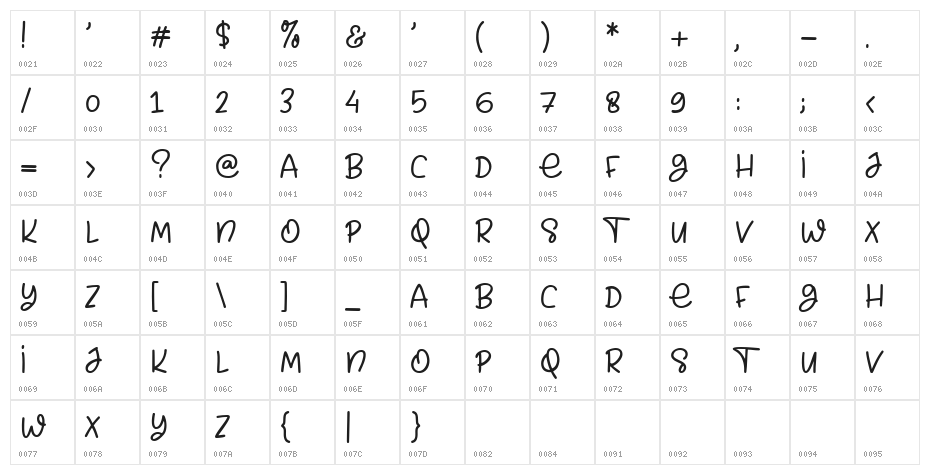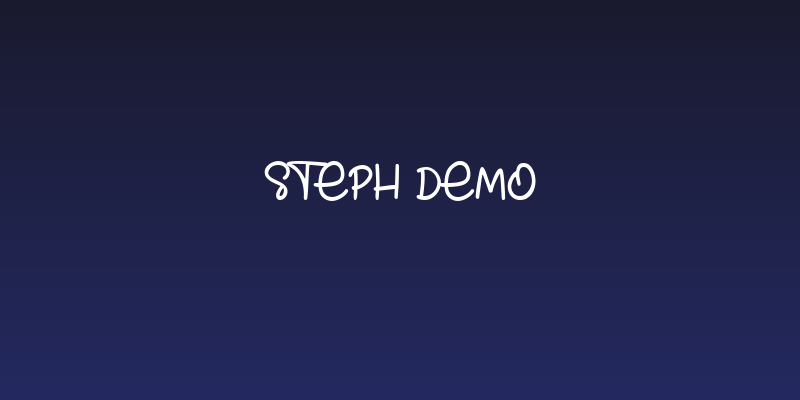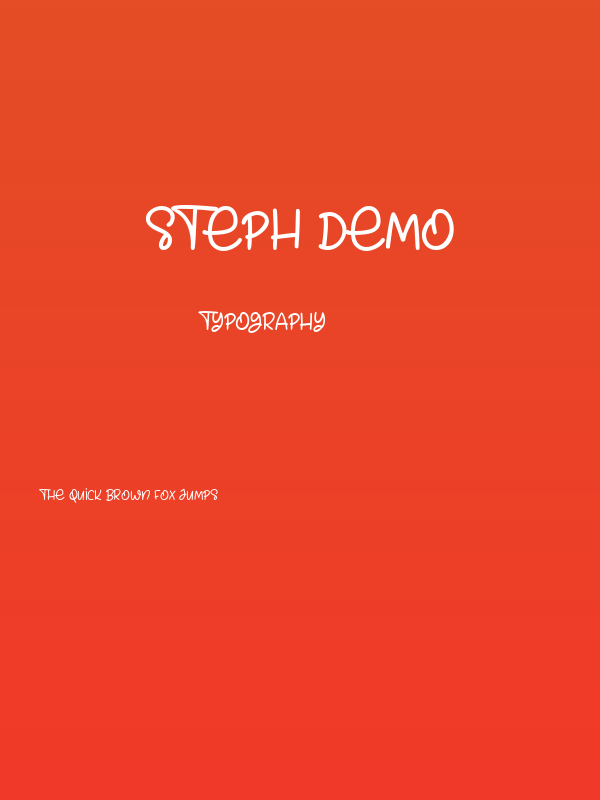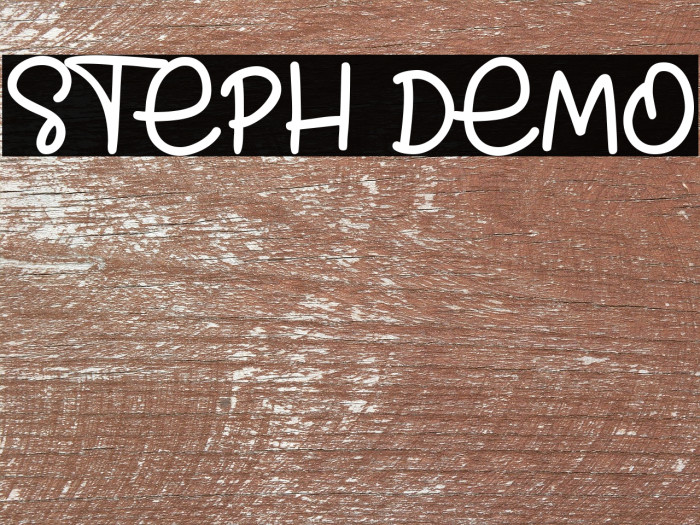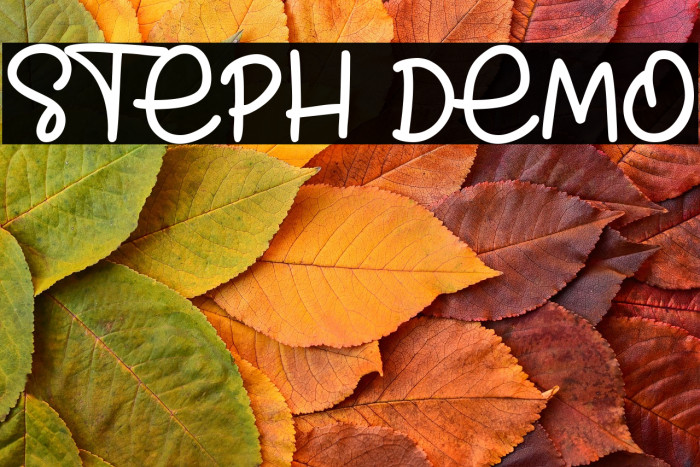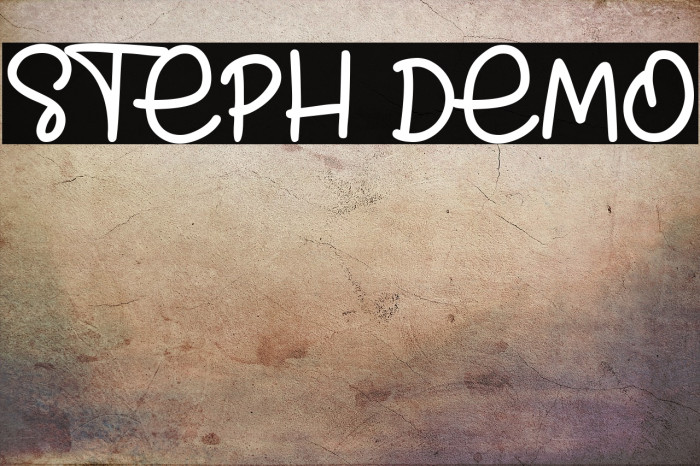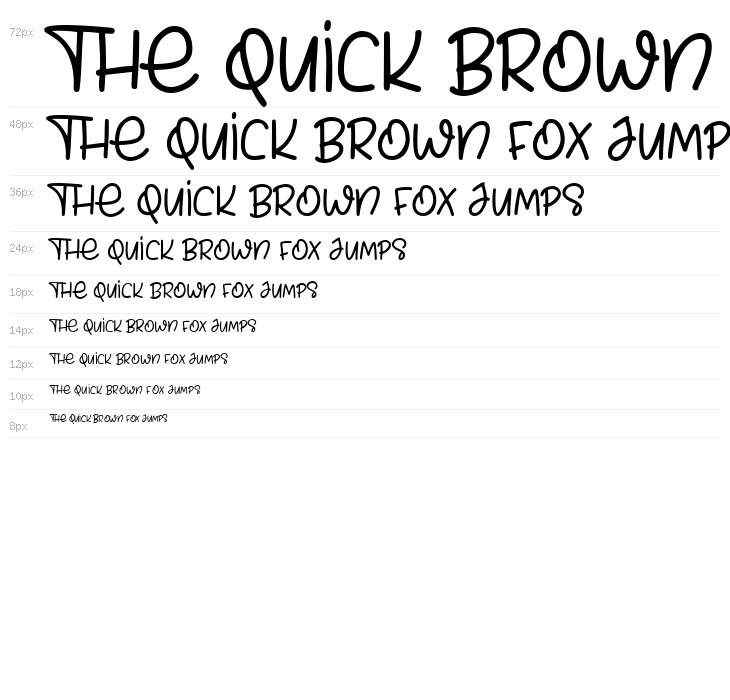
Steph Demo Font
Steph Demo Description
This font features a playful and casual handwritten style, characterized by its smooth, rounded strokes and consistent line weight. The letters are slightly slanted, adding a dynamic and informal touch. The uppercase and lowercase letters maintain a uniform appearance, with a friendly and approachable feel. The numerals and special characters are crafted with the same fluidity, ensuring a cohesive look across all elements. This font exudes a sense of warmth and creativity, making it ideal for projects that require a personal and inviting tone.
| Proposed Projects | Ideal for greeting cards, invitations, personal branding, and creative projects that require a friendly and informal touch. |